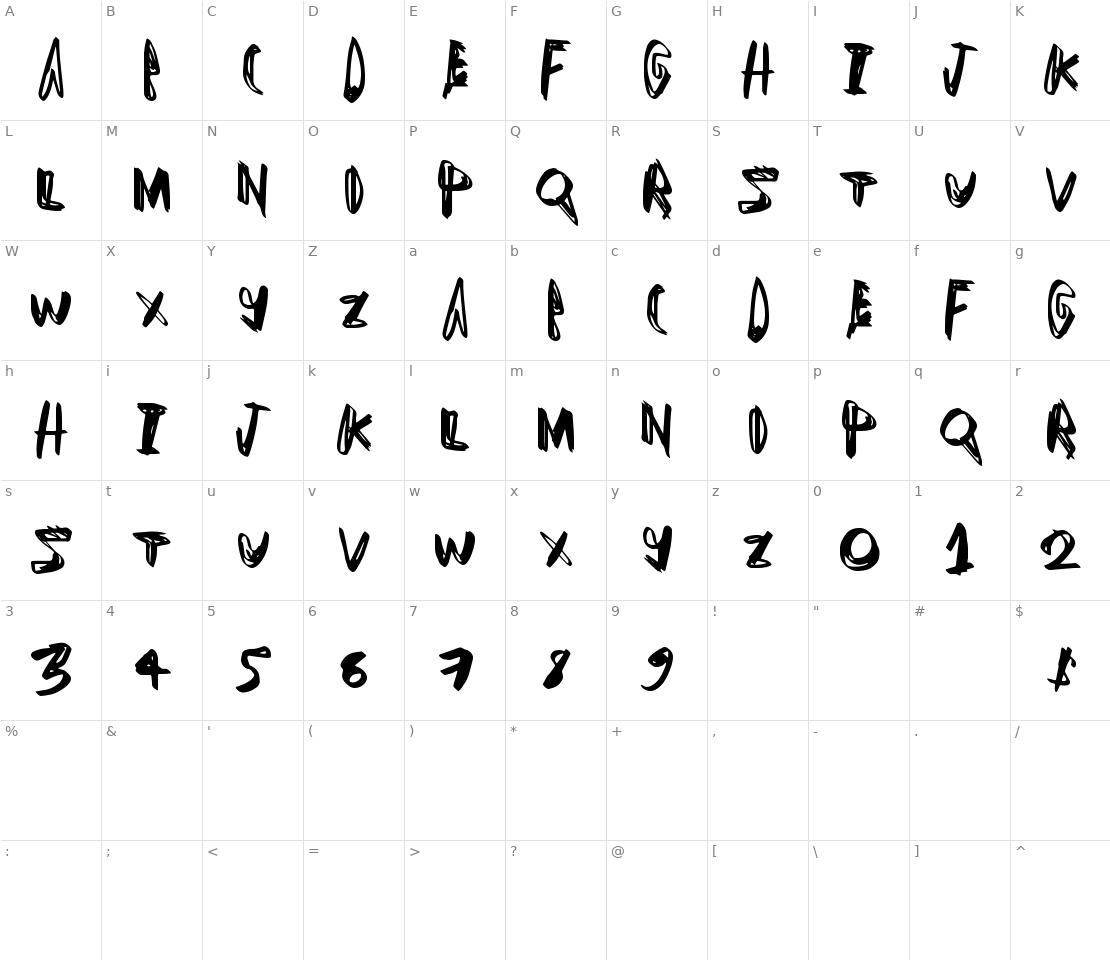
Luck Dogs
Luck Dogs is a bold, rough-edged graffiti face from Xerographer Fonts that carries the loose energy of street lettering without trying too hard to look authentic. The letterforms are chunky and casual, with enough grit and irregularity to feel like they were sprayed fast on a concrete wall. Best kept to headlines, posters, and urban-themed projects where you want something edgy but still readable.